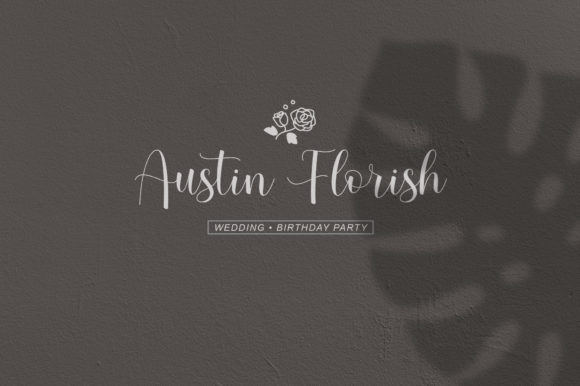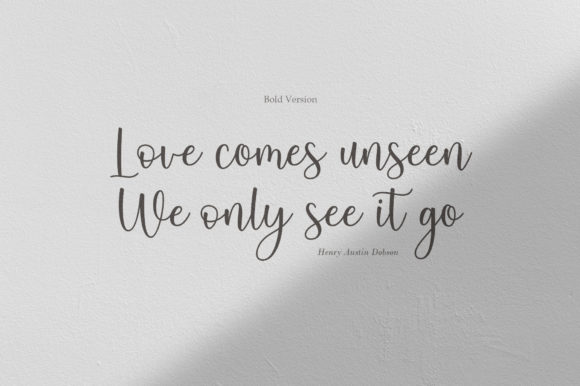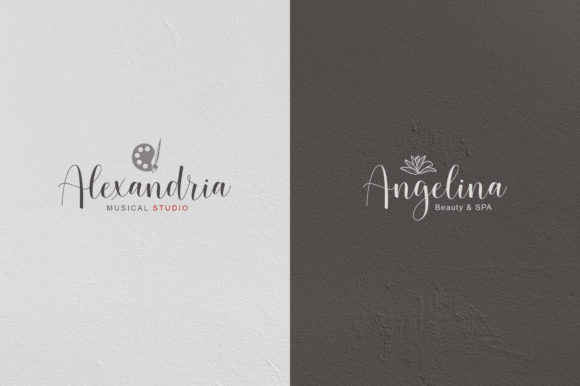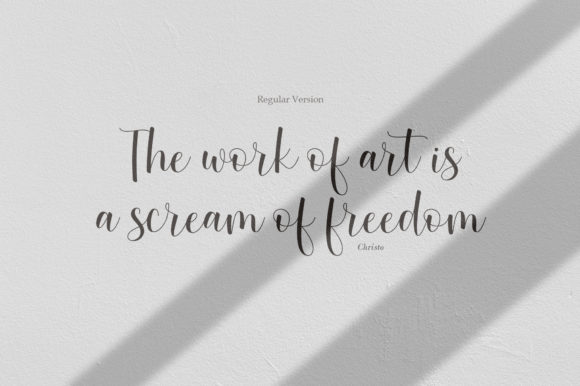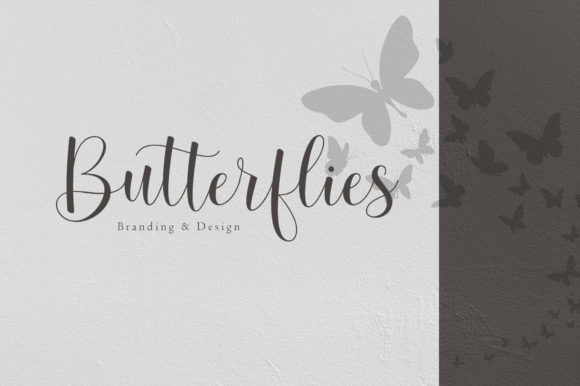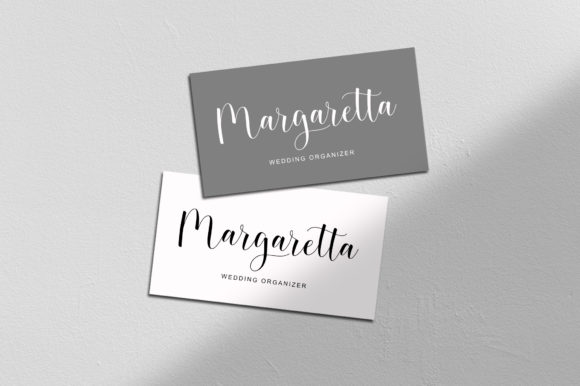
Betterday Font: Elevate Your Designs with a Touch of Classic Calligraphy and a Sweet Twist
Betterday is a gorgeous script font that updates classic calligraphy with a sweet twist! This beautiful font is perfect for designers and crafters looking to add a touch of elegance and whimsy to their projects. In this article, we’ll dive into the world of Betterday Font, exploring its features, uses, and benefits.
The Inspiration Behind Betterday Font
Betterday Font is inspired by the traditional calligraphy of the past, but with a modern twist. The font’s creator aimed to capture the essence of classic calligraphy while infusing it with a playful and sweet vibe. The result is a font that exudes sophistication and charm, making it perfect for a wide range of design applications.
Key Features of Betterday Font
Betterday Font comes with a range of features that make it a versatile and practical choice for designers and crafters. Some of its key features include:
- Script Style: Betterday Font is a script font that features flowing connections between letters, creating a sense of movement and fluidity.
- Classic Calligraphy Inspiration: The font draws inspiration from traditional calligraphy, with elegant letterforms and subtle flourishes.
- Sweet Twist: Betterday Font adds a playful touch to classic calligraphy, making it perfect for designs that require a bit of whimsy.
- High-Quality Design: The font is designed with high-quality craftsmanship in mind, ensuring that it looks great in any design application.
Uses of Betterday Font
Betterday Font is a versatile font that can be used in a wide range of design applications, including:
- Wedding Designs: The font’s elegant and whimsical style makes it perfect for wedding invitations, stationery, and other wedding-related designs.
- Branding and Packaging: Betterday Font can add a touch of sophistication and charm to branding and packaging designs, making it ideal for businesses that want to stand out.
- Digital Designs: The font can be used in digital designs, such as social media graphics, blog posts, and website headers.
- Crafting and Scrapbooking: Betterday Font is also perfect for crafters and scrapbookers who want to add a personal touch to their projects.
Benefits of Using Betterday Font
Using Betterday Font in your designs comes with a range of benefits, including:
- Unique and Eye-Catching Designs: The font’s elegant and whimsical style ensures that your designs stand out from the crowd.
- Time-Saving: Betterday Font comes with a range of features and styles, making it easy to create professional-looking designs quickly.
- Versatility: The font can be used in a wide range of design applications, making it a great addition to any design library.
- High-Quality: Betterday Font is designed with high-quality craftsmanship in mind, ensuring that it looks great in any design application.
Tips for Using Betterday Font
To get the most out of Betterday Font, here are a few tips to keep in mind:
- Experiment with Different Sizes and Styles: Betterday Font comes in a range of styles and sizes, so experiment with different combinations to find the one that works best for your design.
- Pair with Other Fonts: The font pairs well with other fonts, so don’t be afraid to experiment with different font combinations.
- Use in Combination with Images: Betterday Font looks great when used in combination with images, so consider using it in designs that feature photographs or illustrations.
Betterday Font is a gorgeous script font that updates classic calligraphy with a sweet twist! With its elegant and whimsical style, it’s perfect for designers and crafters looking to add a touch of sophistication and charm to their projects. Whether you’re designing wedding invitations, branding materials, or digital graphics, Betterday Font is a versatile and practical choice. So why not give it a try and see how it can elevate your designs?